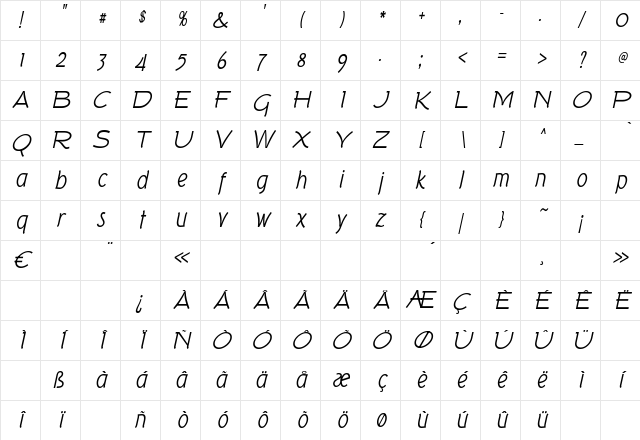
Tork Italic
Tork Family
Tork Italic
Design Context for Tork
Tork is a composed and adaptable typeface that performs quietly and consistently across a wide range of design contexts. The slanted form adds forward momentum and visual energy.
Pro Tip: Use Tork for emphasis, pull quotes, and subheadings where its slanted energy can add rhythm to the layout.